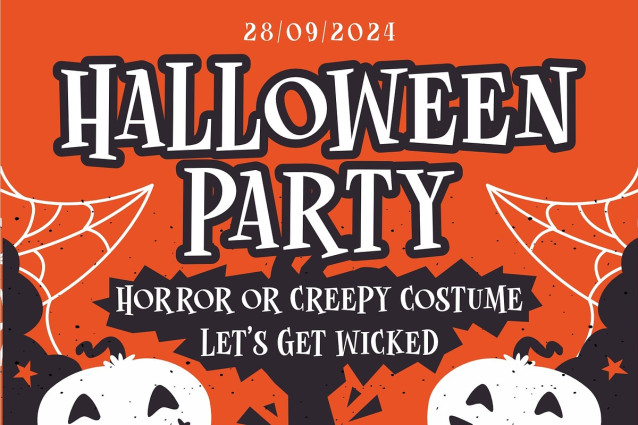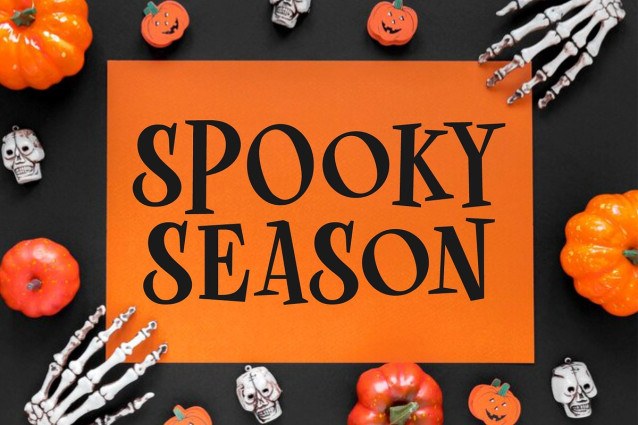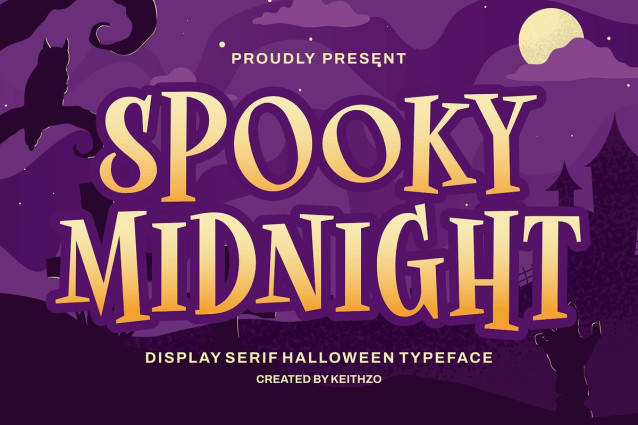
Spooky Midnight Font
Spooky Midnight Font, a bewitching display serif Halloween font, conjuring an enviable blend of elegance and eeriness. This magical typeface is sublime for Halloween-themed lettering that will add a touch of spectral sophistication to your projects. Ideal for outfitting frames for your home with a beautiful macabre edge or sprucing up book covers with an air of mystery. Greeting cards will adore its spectral charm, while its unique allure can turn any logo into an ominous masterpiece. With Spooky Midnight you can even transform a humdrum t-shirt or magazine into a thrilling Halloween-themed standout. Perfect for any project that desires a Halloween twist with an elegant touch. Truly a typeface that embraces the Halloween spirit without losing its versatility.